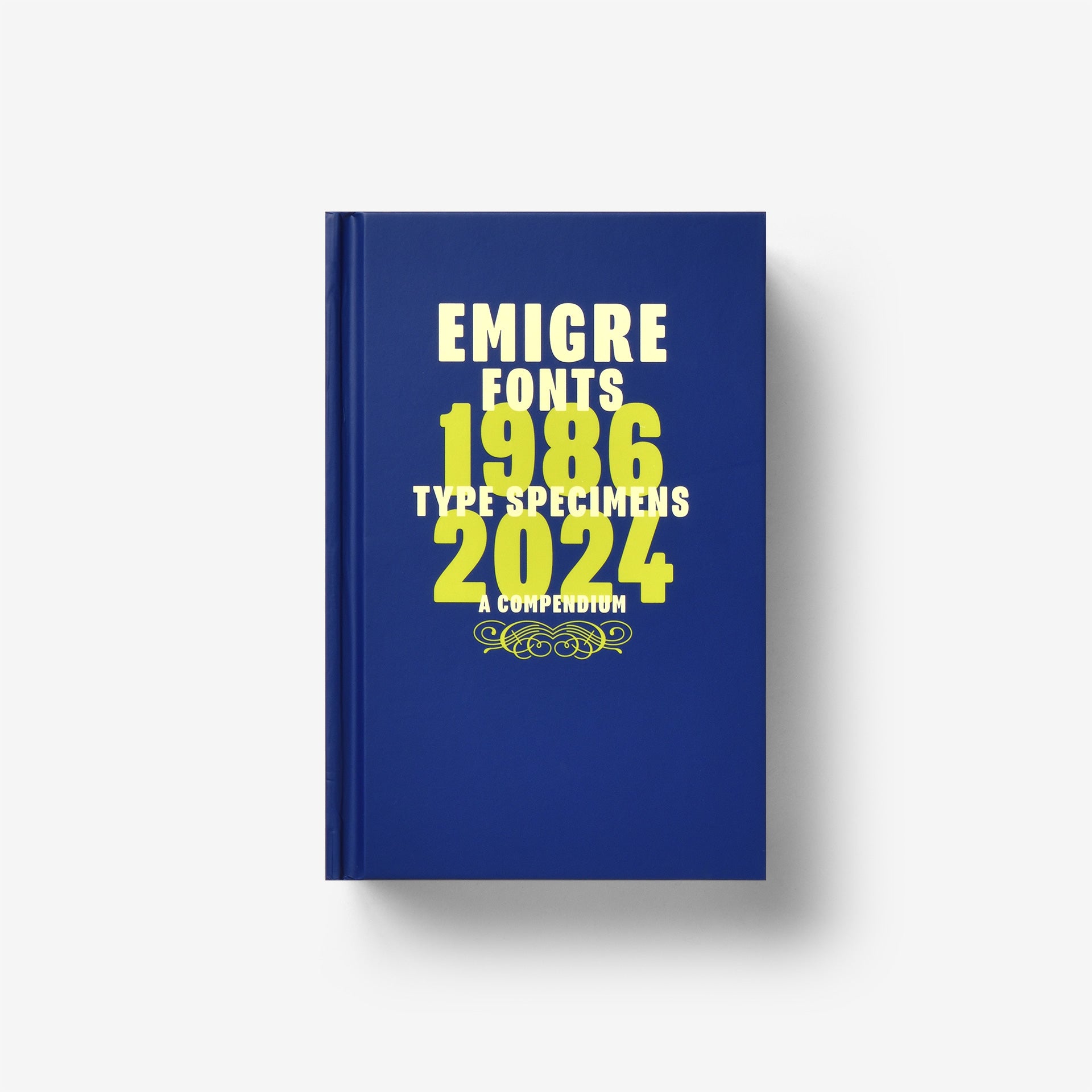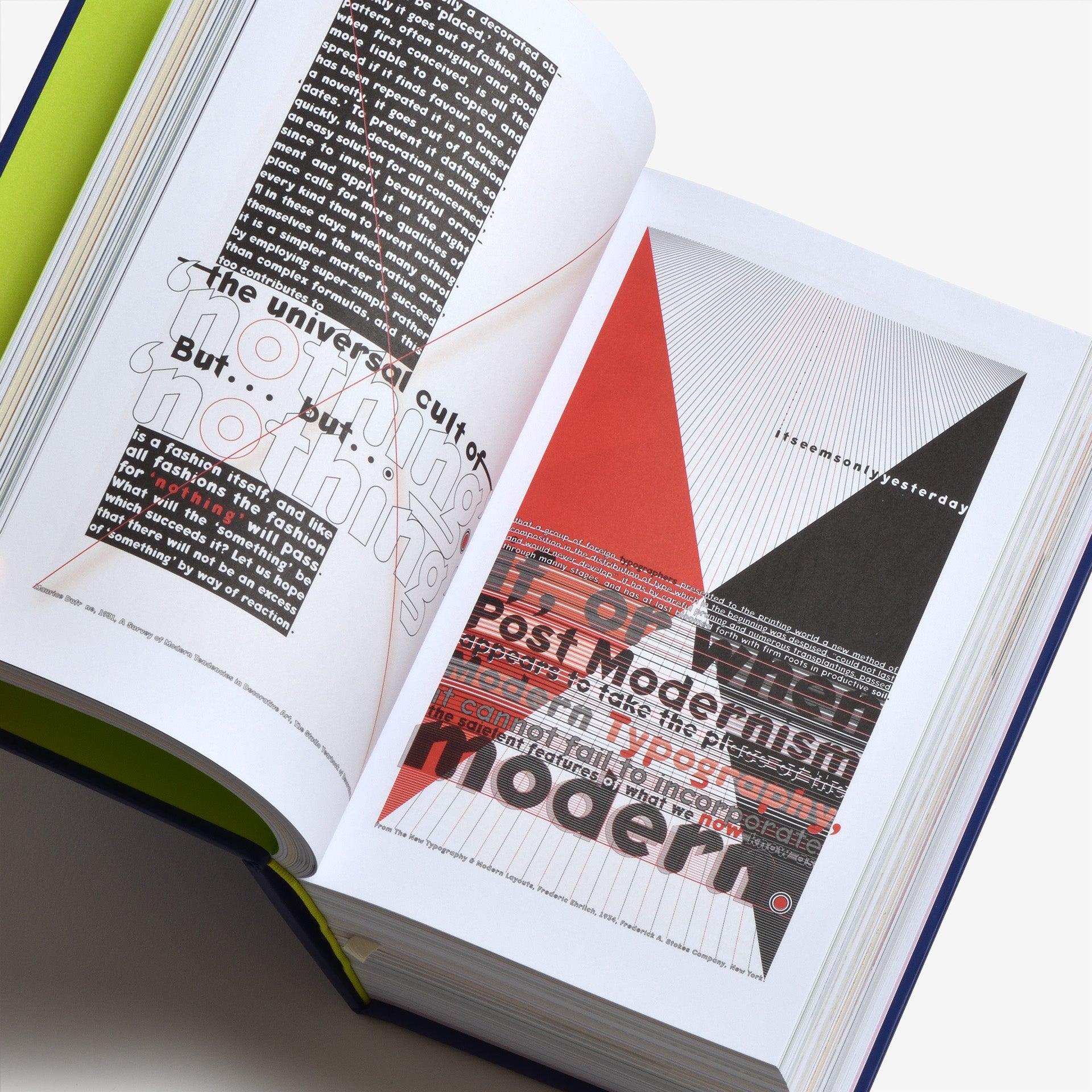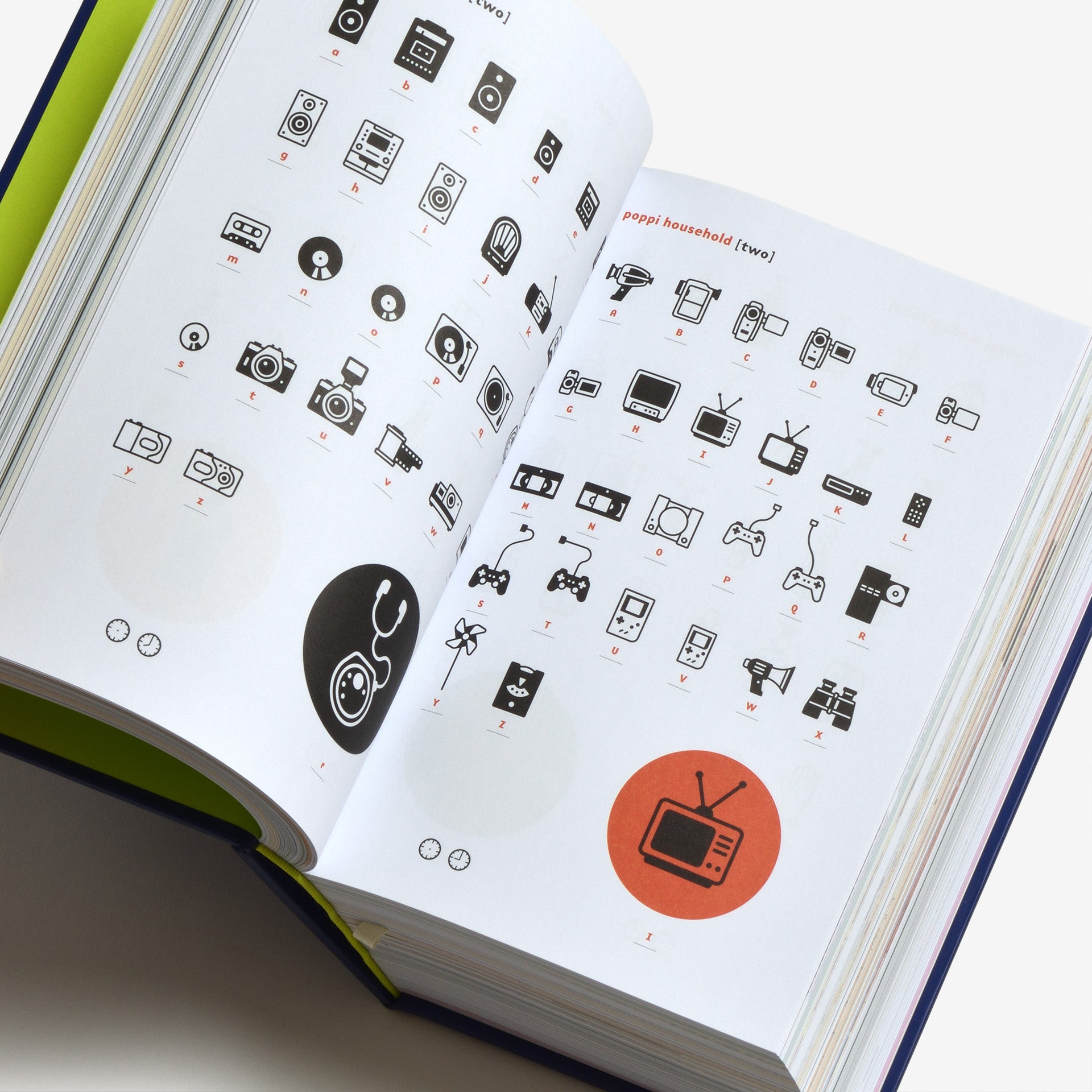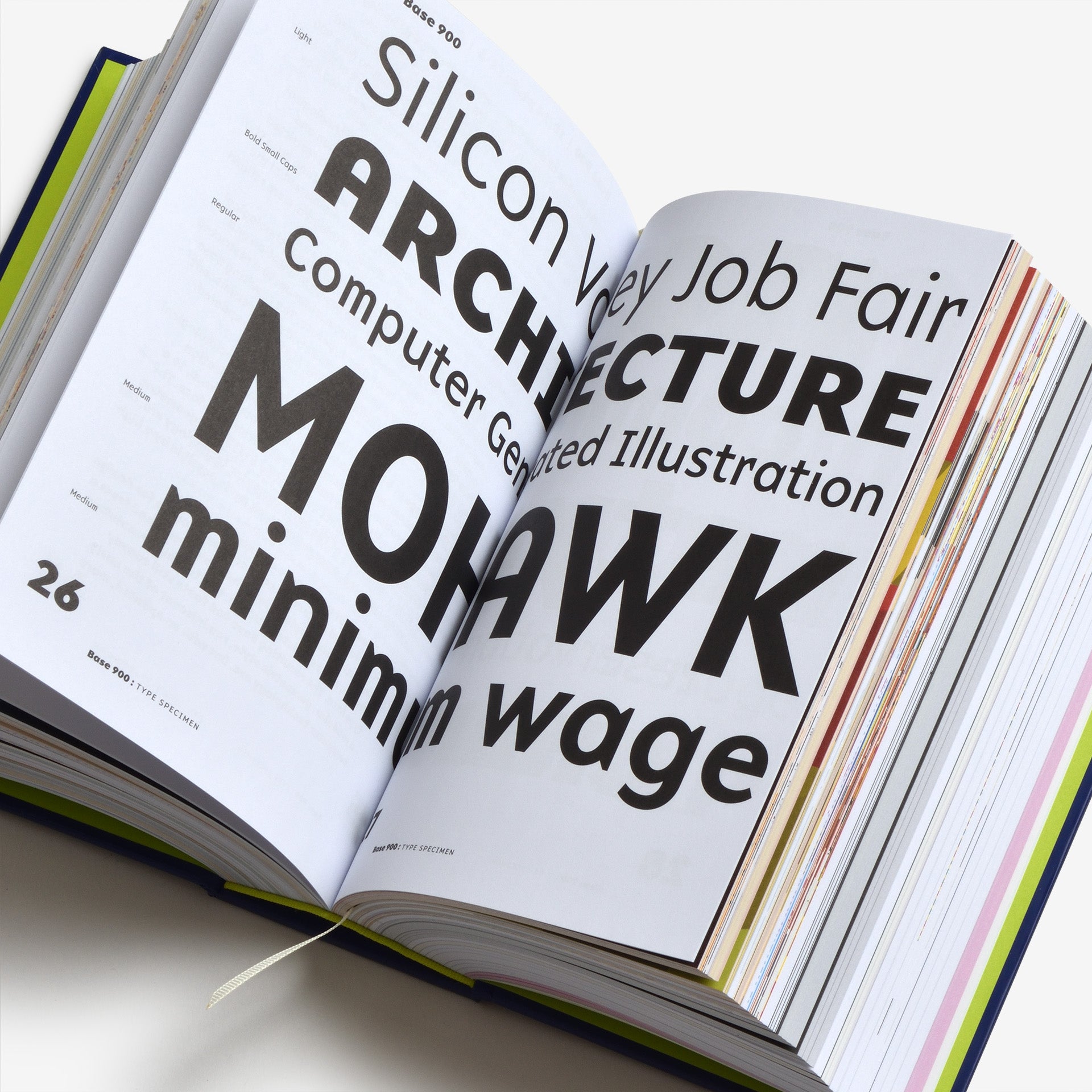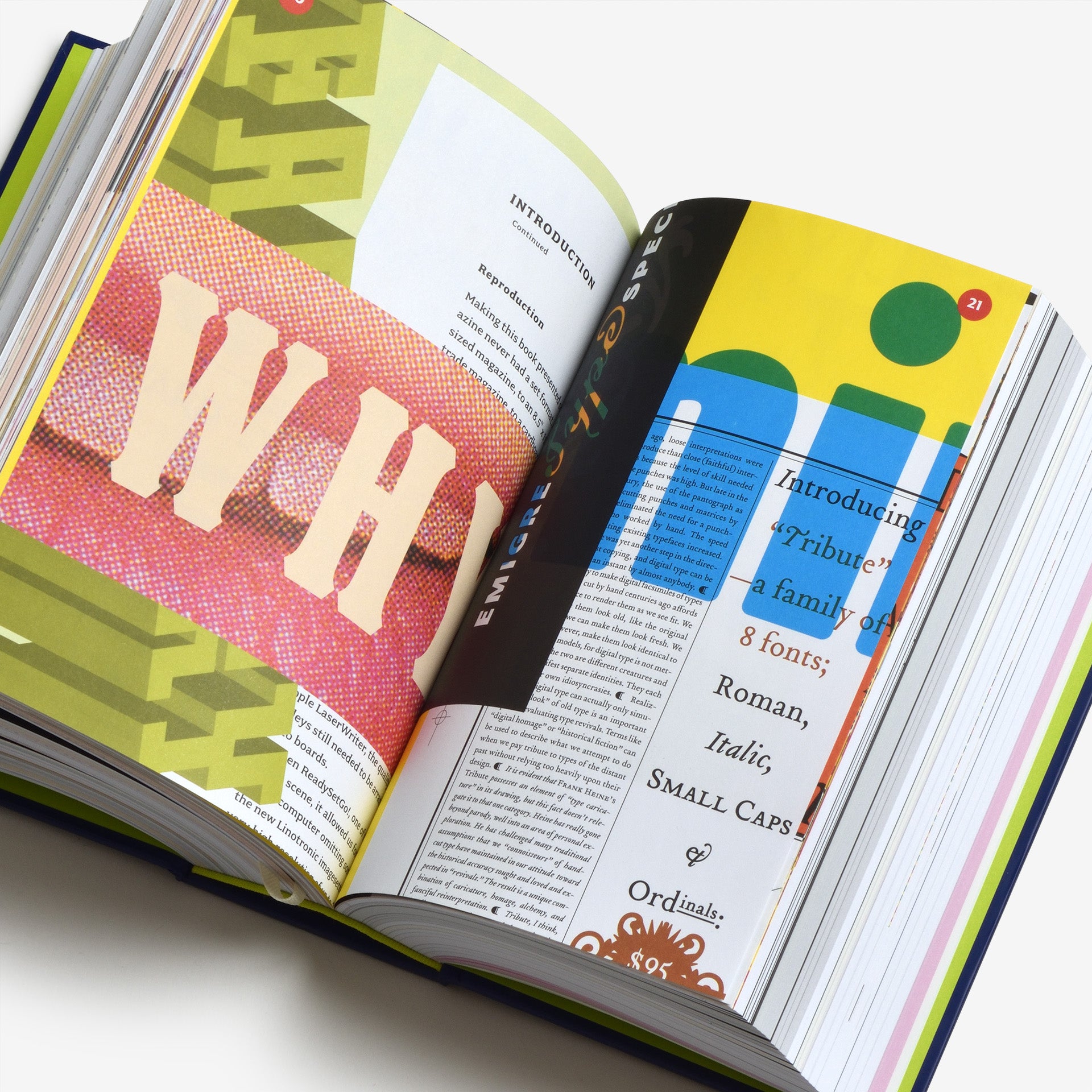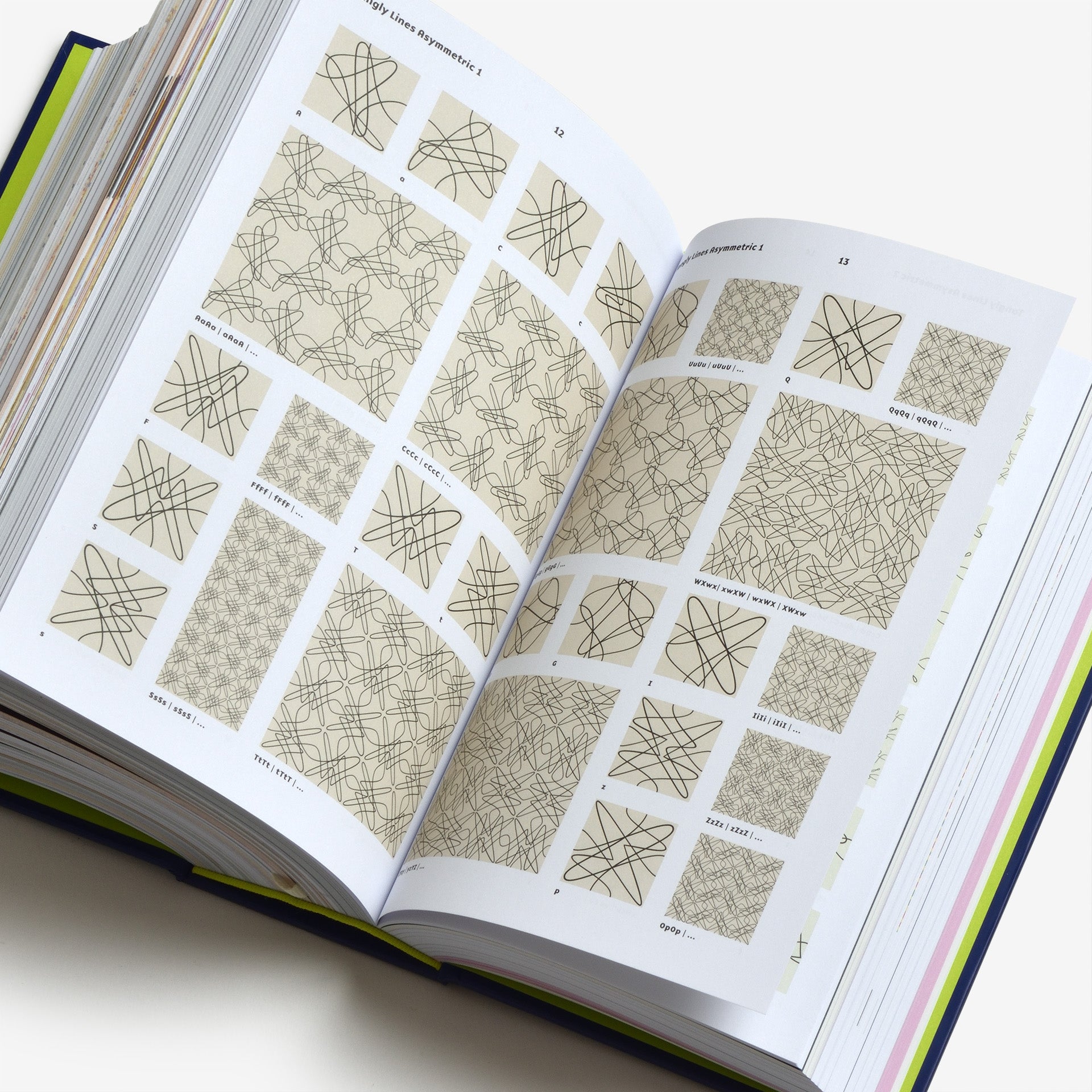
Emigre Fonts: Type Specimens, 1986–2024
A 1,264-page tome of type specimens from a trailblazing digital foundry.
Founded in 1984 by Rudy VanderLans and Zuzana Licko, Emigre was one of the first independent publishers and type foundries to explore the new design possibilities offered by the Macintosh computer. Many people first encountered the foundry’s typefaces in the innovative pages of Emigre magazine (1984–2005). But Emigre also issued small booklets to promote the virtues of their fonts and reveal the processes used to design them. More than simple sales tools, these collectible type specimens were enjoyed as much for their inventive contents as for their leading-edge typeface designs.
Emigre Fonts: Type Specimens, 1986–2024, reproduces forty of these booklets in a single massive reference. With a preface from Letterform Archive associate curator Stephen Coles, a foreword from type design collaborator Jeffery Keedy, and a section of never-before-published behind-the-scenes content, this volume provides a near-definitive anthology of the foundry’s remarkable story in print.